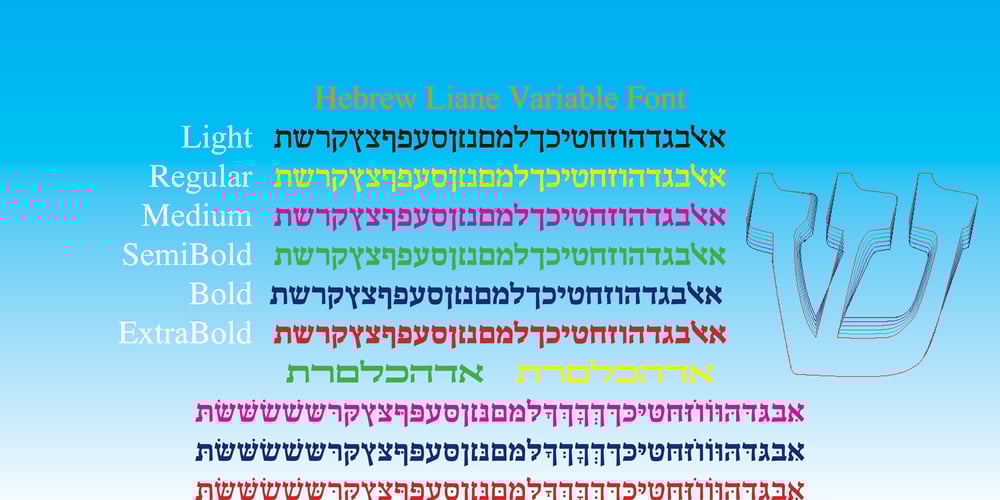
Hebrew Liane VF Tanach
Hebrew Liane VF Tanach Font Family was designed by Sami Artur Mandelbaum and published by Samtype. Hebrew Liane VF Tanach contains 1 styles and family package options. This is a modern, wonderful, and beautiful font.Now in a variable format!This font is super readable and can be used in Posters, books, and Hebrew Bible.The readability of this font is amazing.This font has modern Hebrew punctuation: Shevana, Kamatz Katan, Dagesh Hazak, and Cholam Chaser.